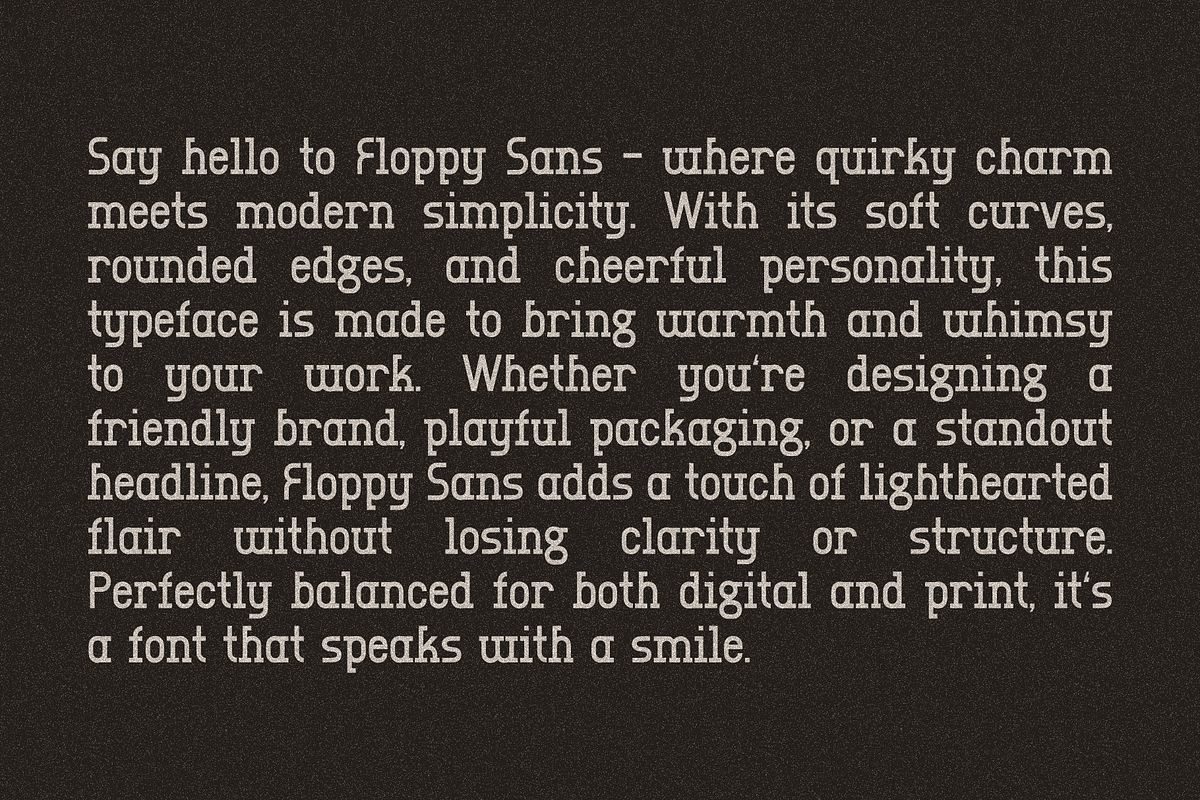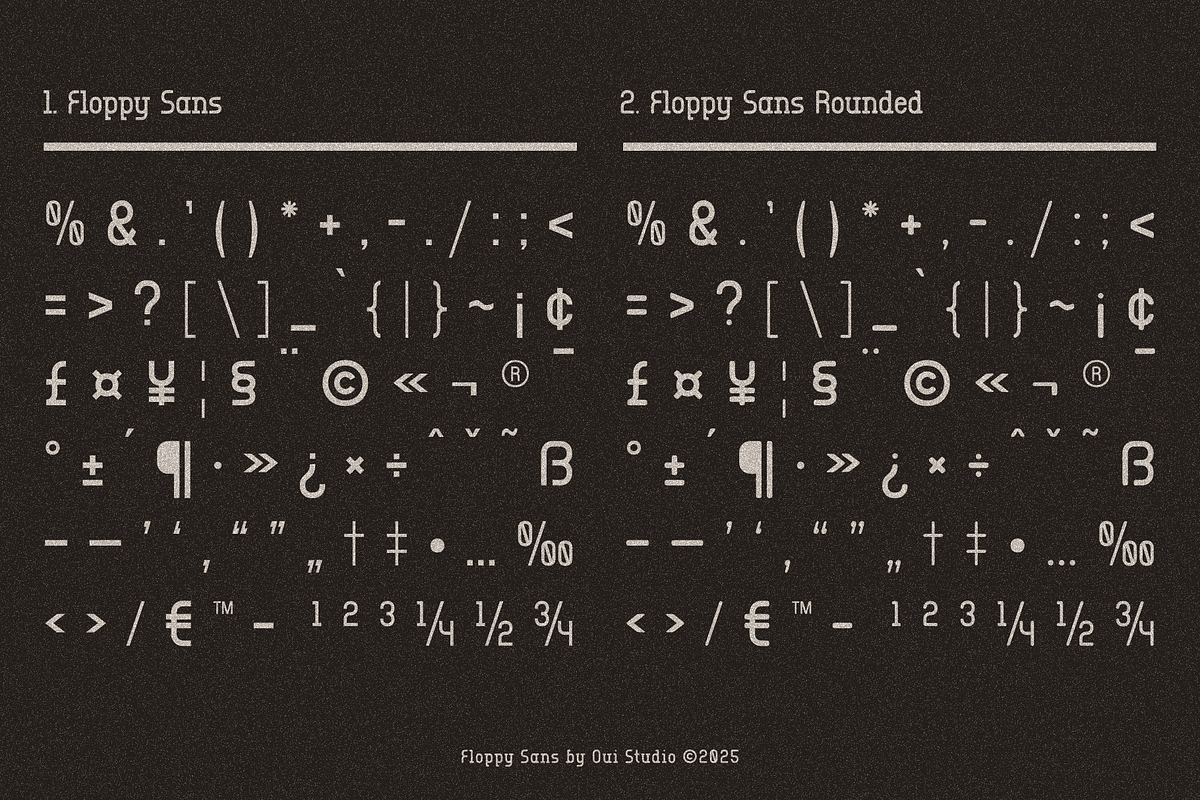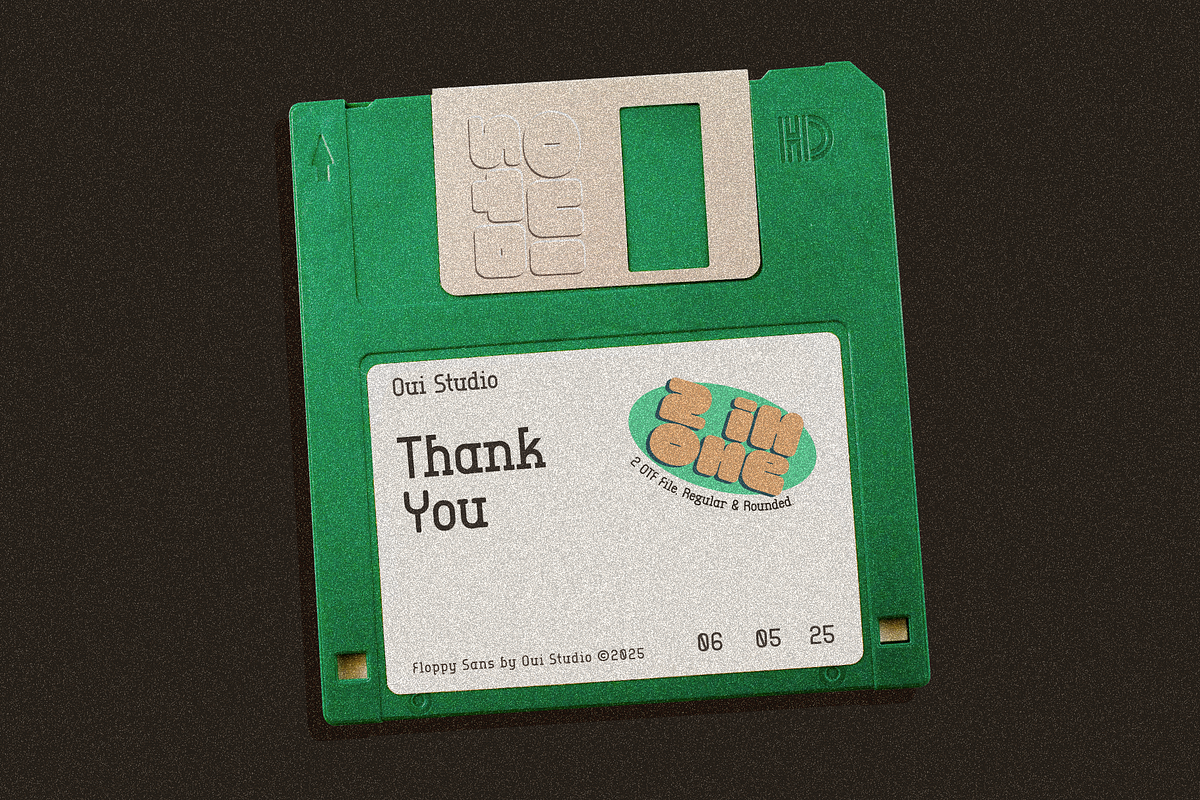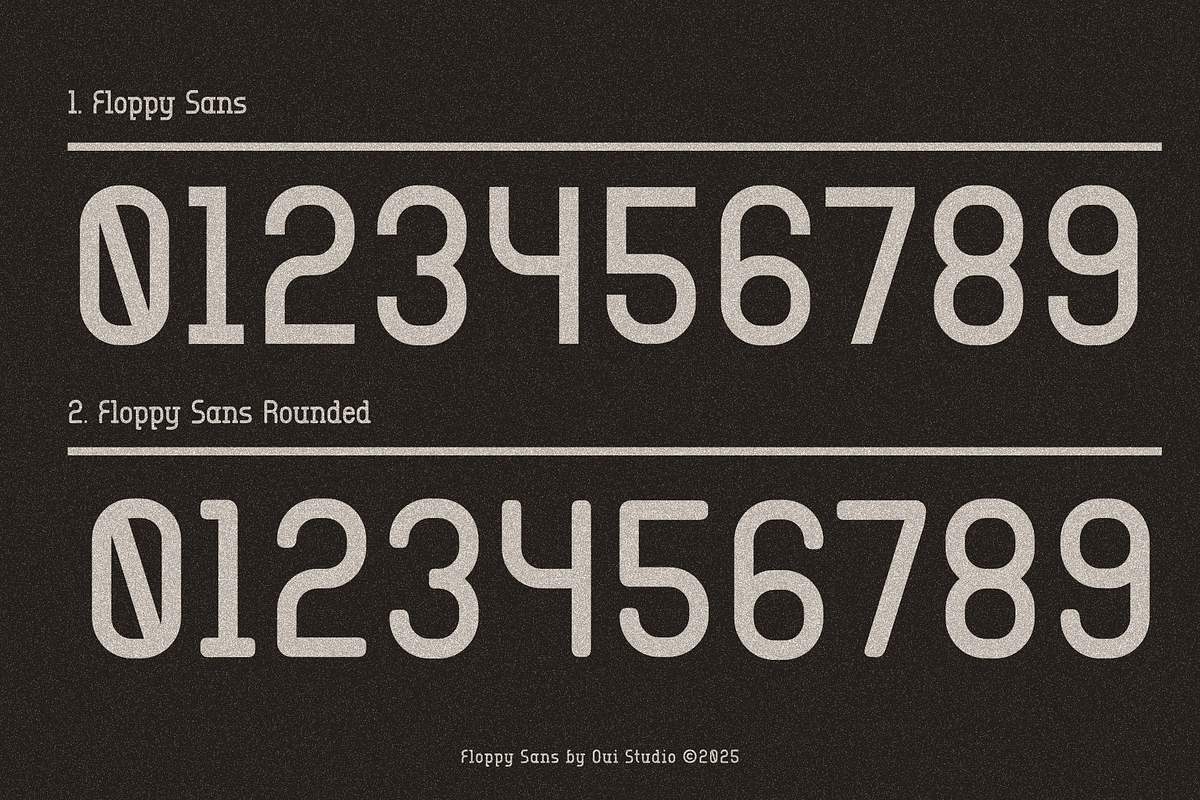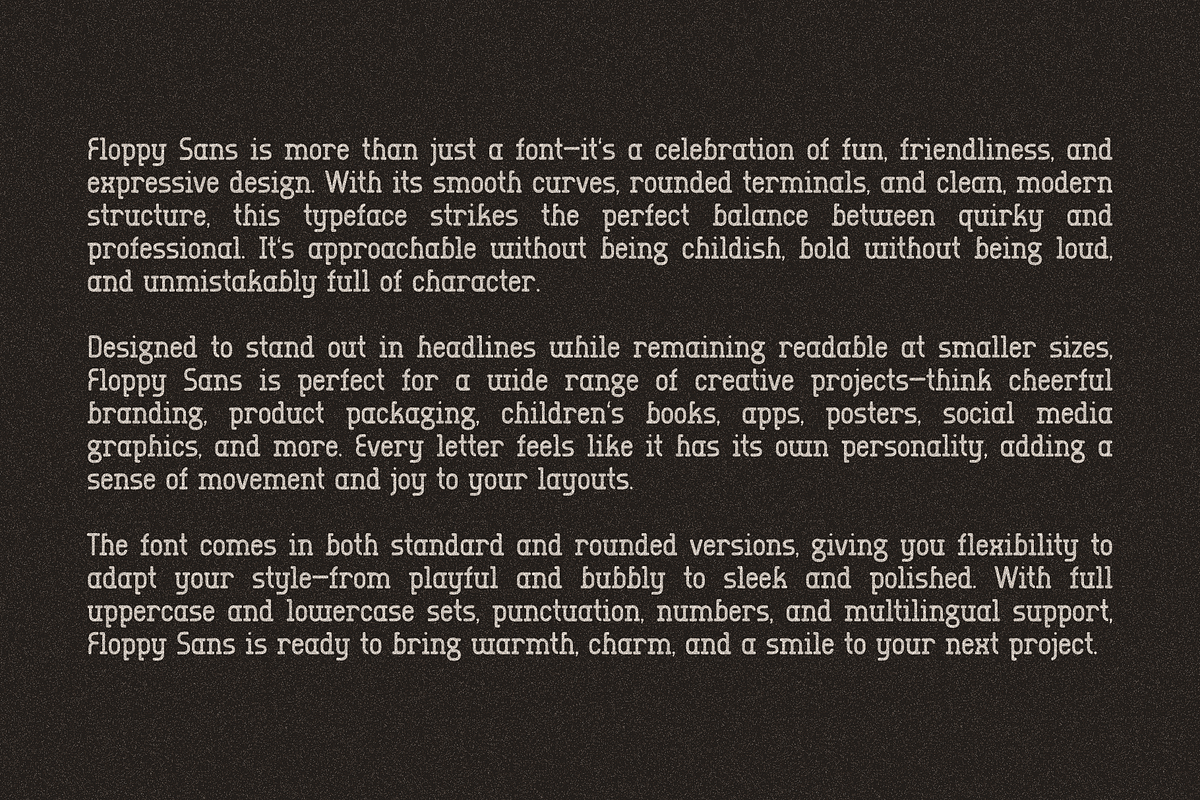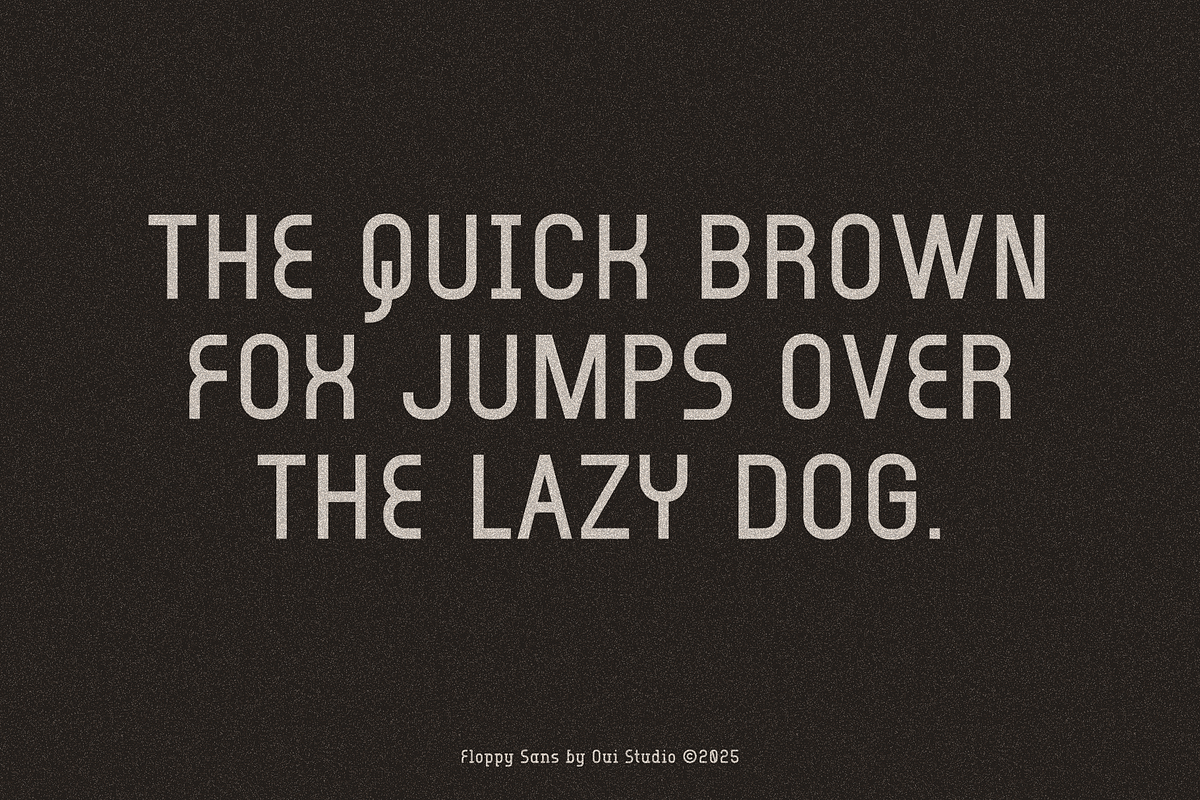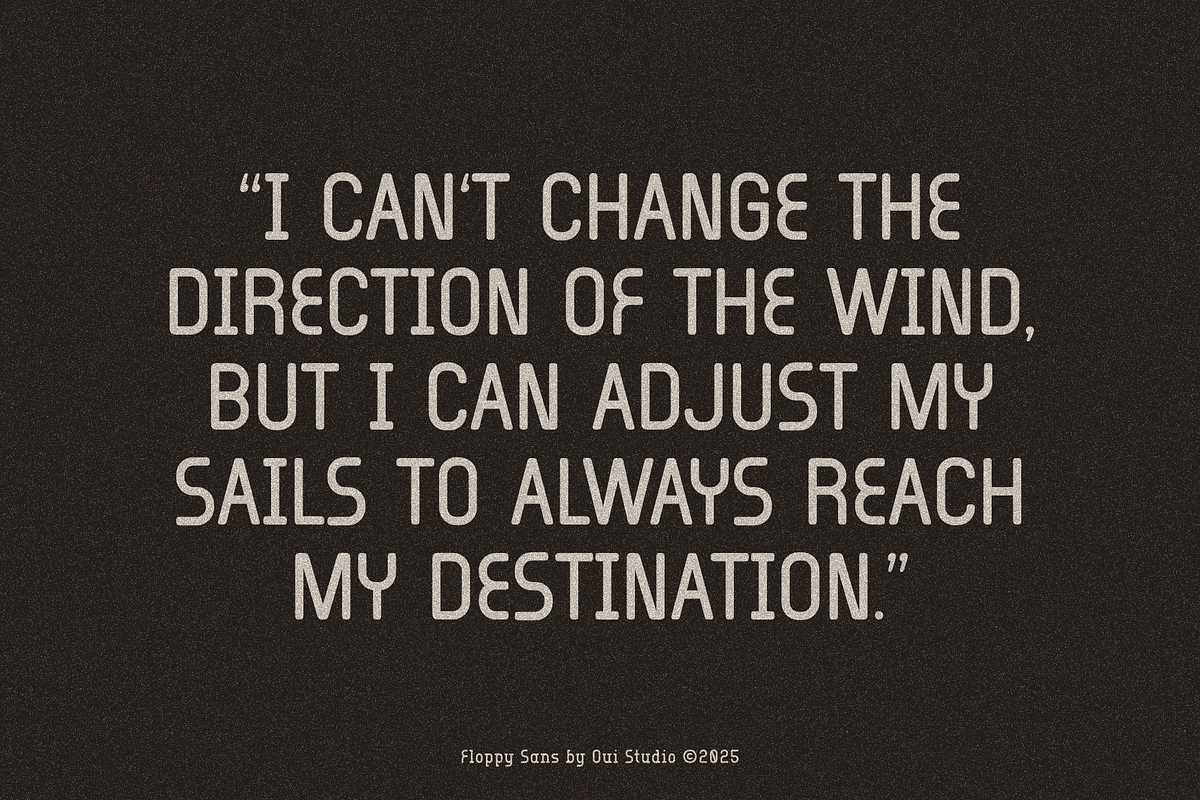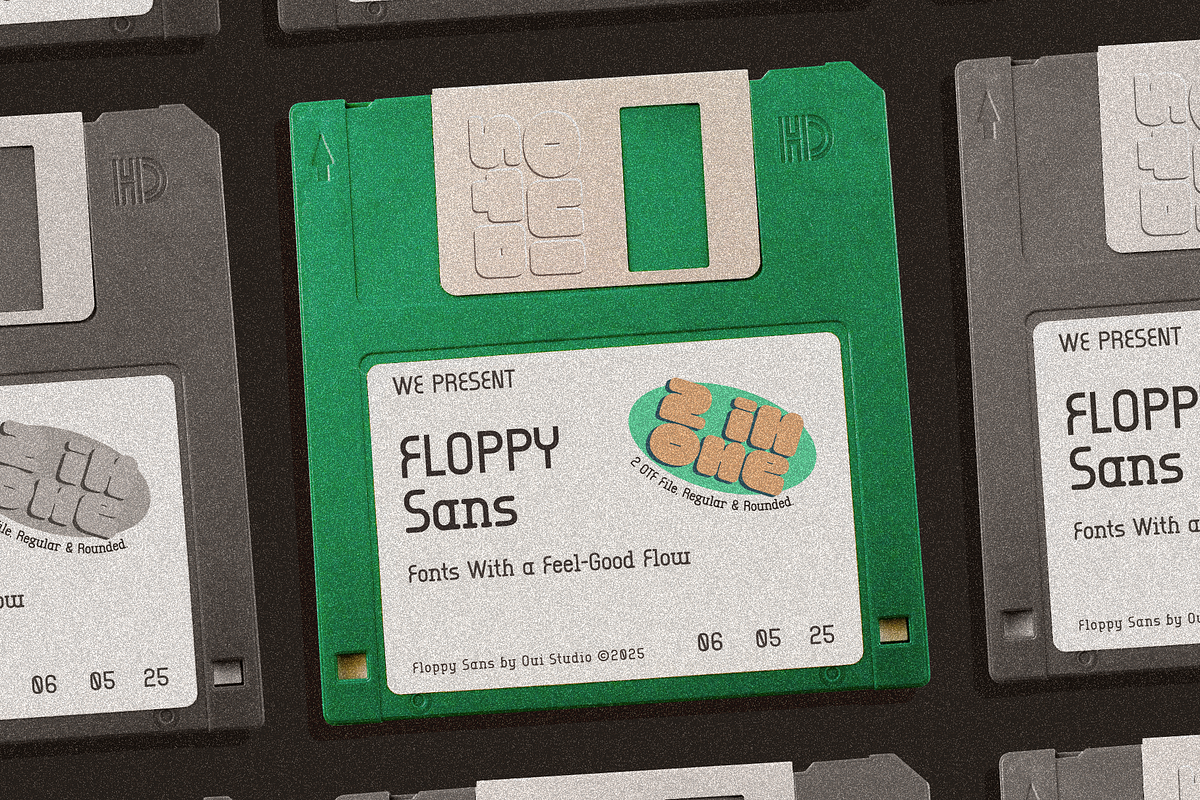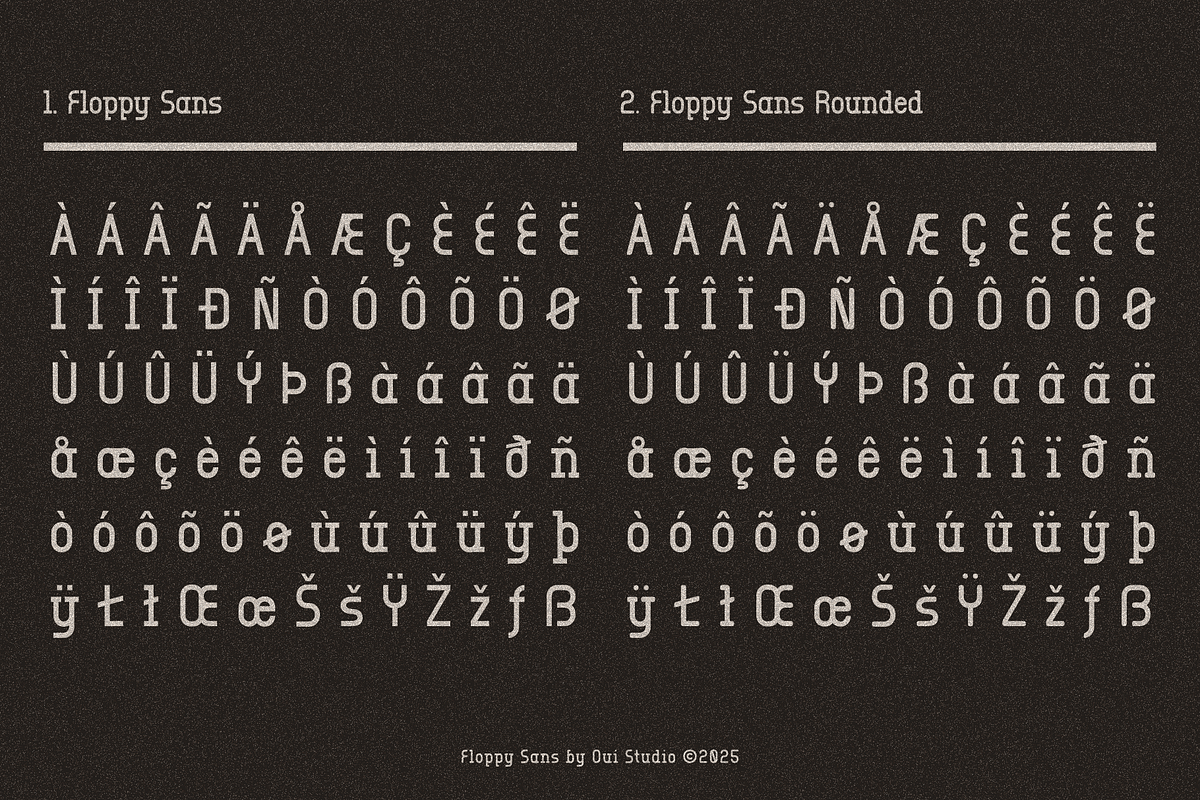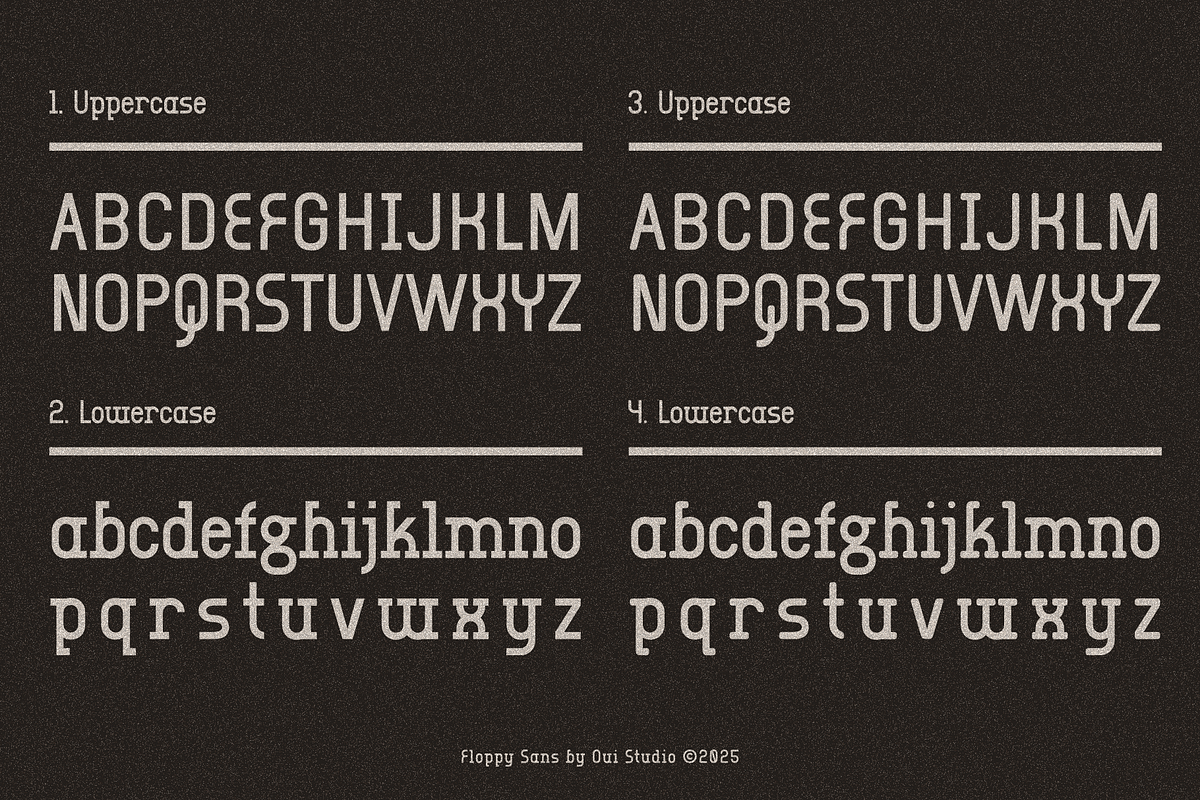
Floppy Clean Modern Sans Serif
Meet 'Floppy' Sans, a fun-loving, soft-edged sans-serif typeface that was made to bring your creative projects to life. Designed with a clean yet playful structure, Floppy Sans combines modern simplicity with rounded charm, making it the perfect choice for designers who want their typography to feel fresh, friendly, and approachable.
Every curve in Floppy Sans is crafted to evoke personality without compromising clarity. Whether you’re designing for kids, building a playful brand identity, crafting bold headlines, or creating eye-catching social media graphics, this font delivers a warm and welcoming tone that stands out from the ordinary.
What sets Floppy Sans apart is its versatility. The standard version is smooth and confident, ideal for digital interfaces, editorial layouts, or professional branding with a soft edge. The Rounded version takes things a step further with even softer terminals, perfect for packaging, stickers, or anything that needs an extra dose of charm.
This font family was designed to be easy to use and ready for real-world applications. With full multilingual support, punctuation, and a wide set of characters, Floppy Sans works seamlessly across different platforms and languages. Whether used in big, bold titles or smaller text elements, it keeps things legible while maintaining its unique personality.
If you’re looking for a typeface that feels friendly, fun, and modern—with just the right amount of quirk—Floppy Sans is ready to bring joy to your next design.